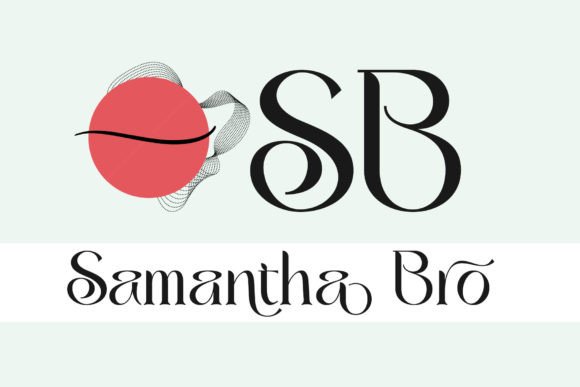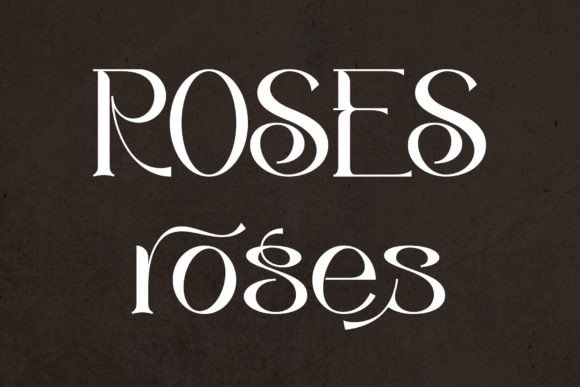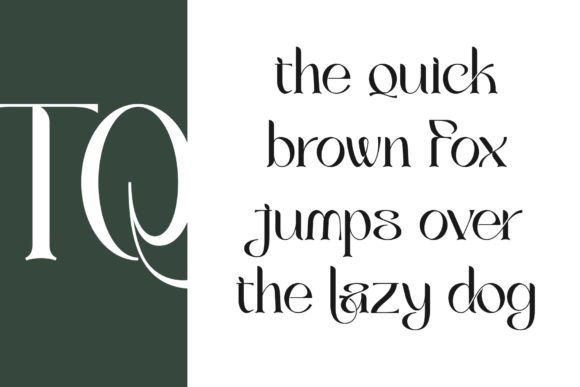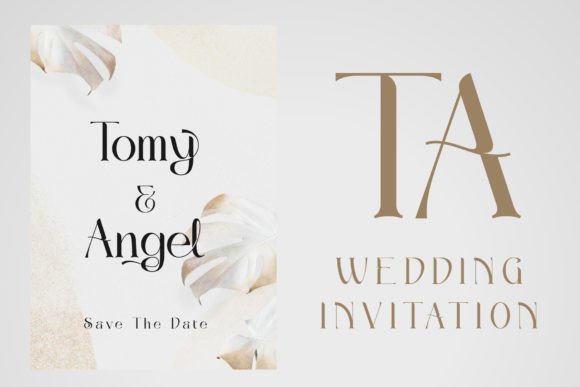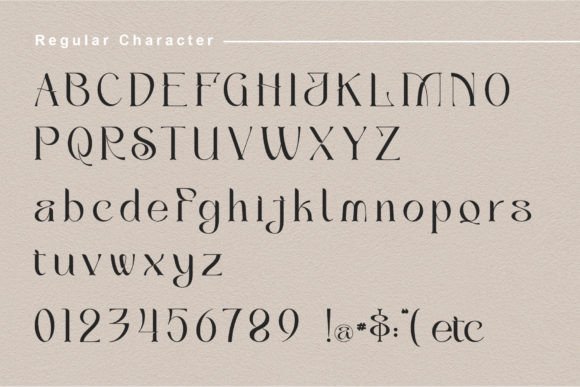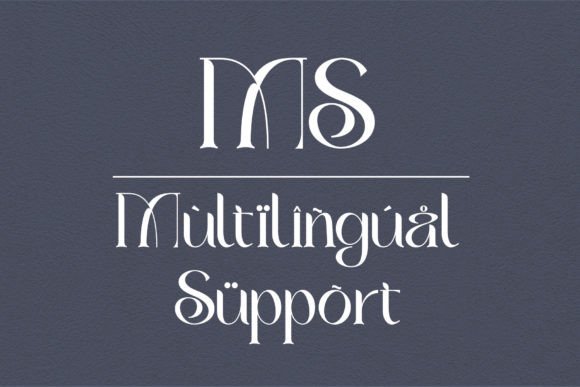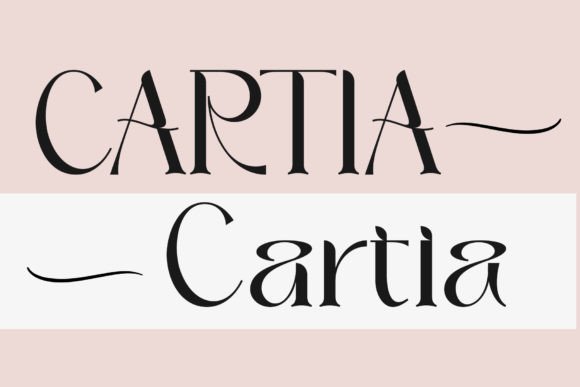
Discover the Timeless Elegance of Cartia Font
Are you on the lookout for a typeface that seamlessly blends modernity with classic charm? Look no further than Cartia, a captivating serif font that is sure to elevate your designs to new heights. With its unique style and contemporary look, Cartia is the perfect choice for a wide range of projects, from modern designs to retro vintage aesthetics.
A Font for Every Creative Endeavor
Cartia’s versatility knows no bounds. Whether you’re working on a branding project, crafting a wedding invitation, or creating a fashion or advertising design, this font adds a touch of elegance to every creative endeavor. Its incredibly stylish and glamorous vibe is sure to leave a lasting impression on your audience.
Unleash Your Creativity with Cartia
One of the standout features of Cartia is its PUA encoding, which makes it easy to access all the enchanting glyphs. This means that you can unlock endless possibilities for your artistic expression, experimenting with different styles and designs to create truly spectacular results.
Perfect for Modern and Retro Designs
Cartia’s unique blend of modernity and classic charm makes it the perfect choice for both modern and retro designs. Whether you’re looking to create a sleek and contemporary look or a nostalgic and vintage aesthetic, Cartia has got you covered.
Elevate Your Branding with Cartia
When it comes to branding, the right font can make all the difference. Cartia’s elegant and sophisticated design makes it an excellent choice for brands looking to establish a strong visual identity. With Cartia, you can create a lasting impression on your customers and set your brand apart from the competition.
Crafting and Wedding Invitations Made Easy
Cartia is also an excellent choice for crafters and designers working on wedding invitations, greeting cards, and other paper crafts. Its beautiful and intricate design adds a touch of elegance to any project, making it perfect for special occasions.
Fashion and Advertising Designs
In the world of fashion and advertising, the right font can make all the difference. Cartia’s glamorous and stylish vibe makes it an excellent choice for designers looking to create eye-catching and memorable designs. Whether you’re working on a fashion campaign or an advertising project, Cartia is sure to help you grab your audience’s attention.
Key Features of Cartia Font
- Unique Serif Design: Cartia’s unique serif design sets it apart from other fonts, giving it a distinctive and elegant look.
- PUA Encoding: With PUA encoding, accessing all the glyphs is a breeze, allowing you to unlock endless possibilities for your artistic expression.
- Versatile: Cartia is suitable for a wide range of projects, from modern designs to retro vintage aesthetics.
- Elegant and Sophisticated: Cartia’s elegant and sophisticated design makes it perfect for branding, fashion, and advertising projects.
Get Ready to Fall in Love with Cartia
In conclusion, Cartia is a captivating serif font that is sure to enchant designers and crafters alike. Its unique blend of modernity and classic charm, combined with its versatility and elegant design, make it the perfect choice for a wide range of projects. So why wait? Indulge in the timeless allure of Cartia today and unleash your creativity to create truly spectacular designs!